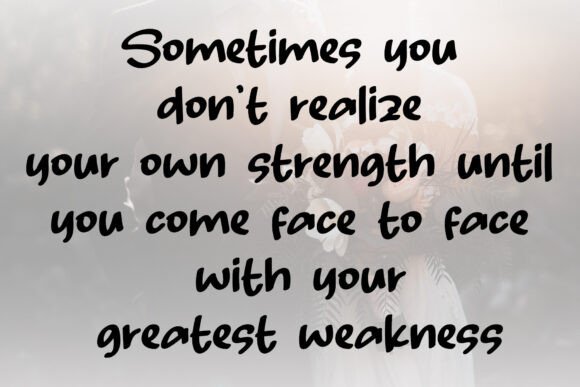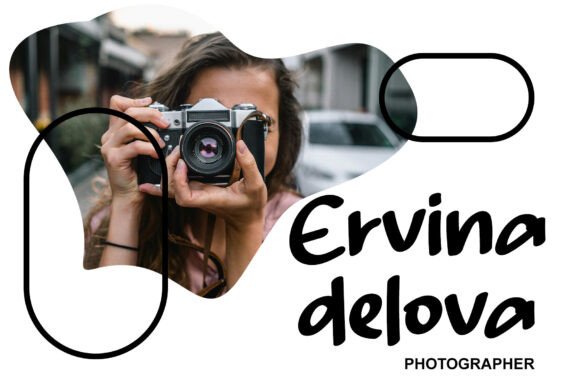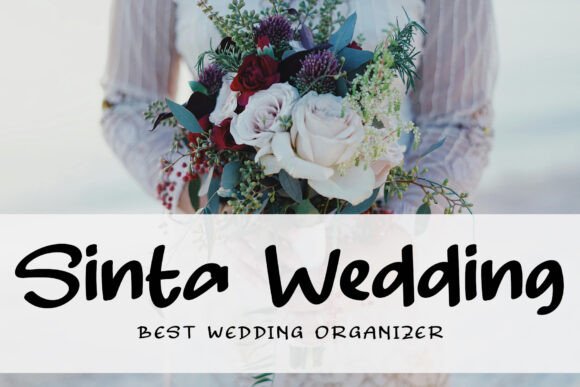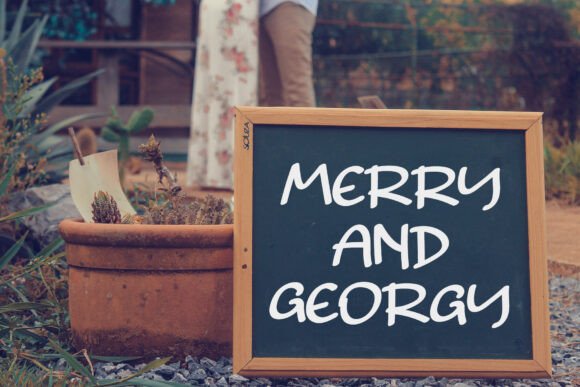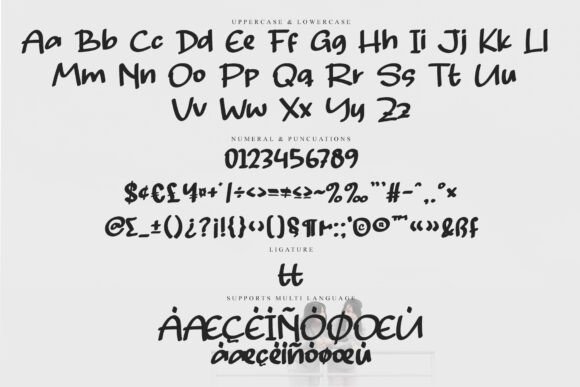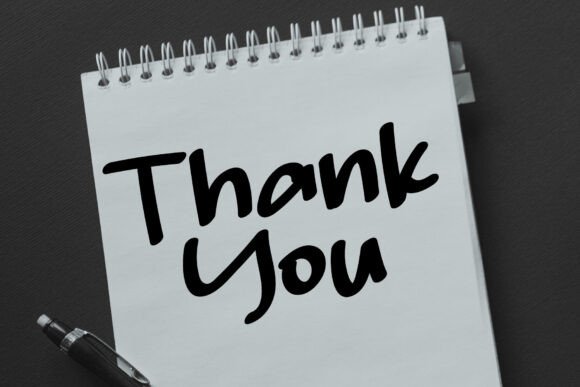
The Elegance of Handwriting: A Designer’s Best Friend
I still remember the time I was working on a wedding invitation project, and my client asked for a font that would make the invitation look elegant and sophisticated. I scoured the internet, tried out countless fonts, but nothing seemed to fit the bill. That was until I stumbled upon the Elegant Handwriting font. It was like a breath of fresh air – smooth, curved letters, and a stylish look that instantly elevated the invitation. In this article, I’ll share my love for this beautiful font, its features, and how to make the most of it in your designs.
- ✨ Smooth, flowing script that mimics beautiful handwriting
- ✅ Elegant and sophisticated look, perfect for formal events
- 🎉 Highly versatile, suitable for invitations, greeting cards, and more
While Elegant Handwriting is an amazing font, there are a few things to keep in mind:
- 🤔 May not be suitable for very small font sizes, as some details may get lost
- ⚠️ Limited availability of certain characters, such as ligatures or special glyphs
The Story Behind Elegant Handwriting
Elegant Handwriting was inspired by the beautiful calligraphy of the past. Its creator, a talented typographer, aimed to capture the essence of handwritten script in a digital font. With its smooth, curved letters and stylish look, Elegant Handwriting has become a popular choice among designers and crafters.